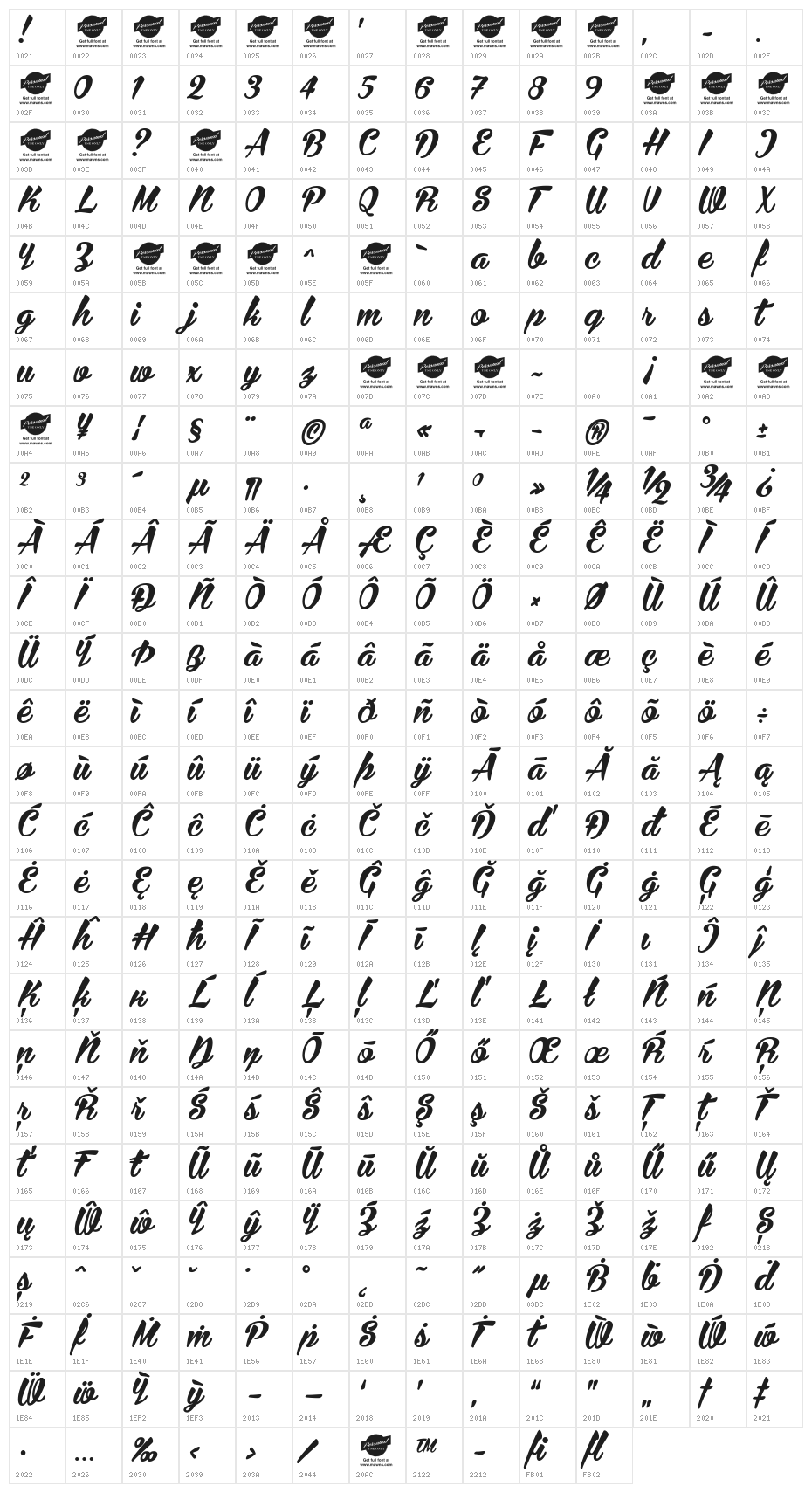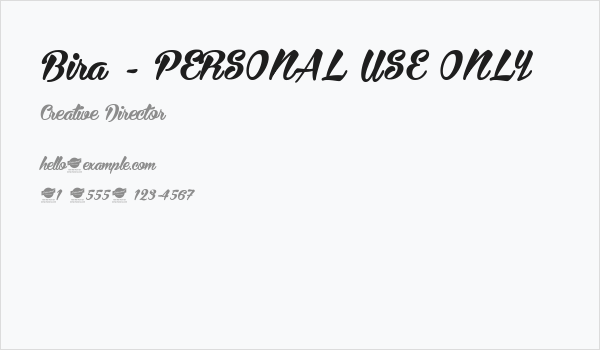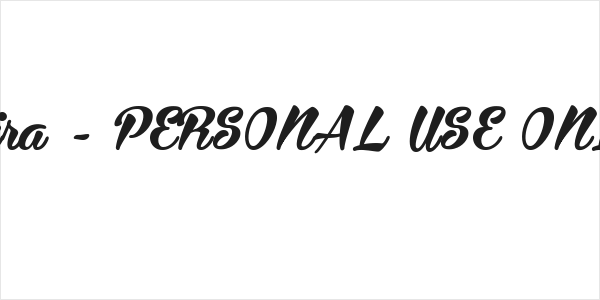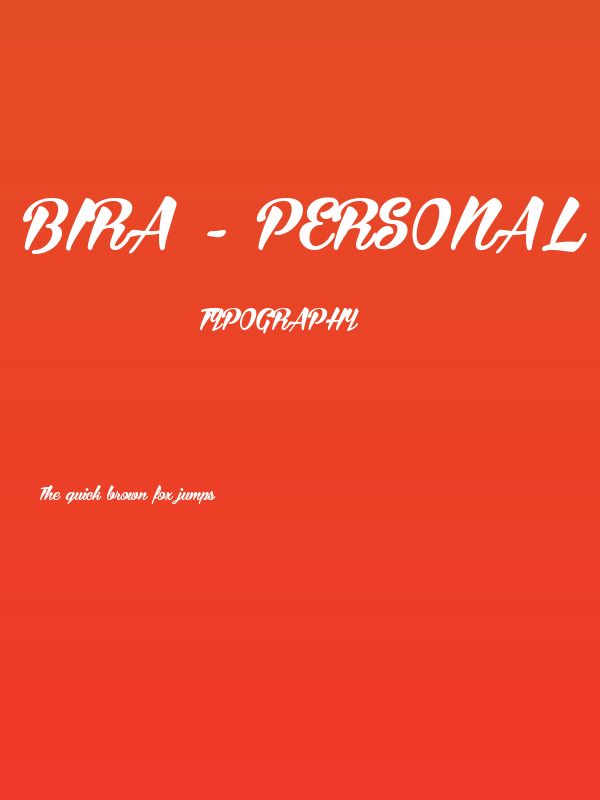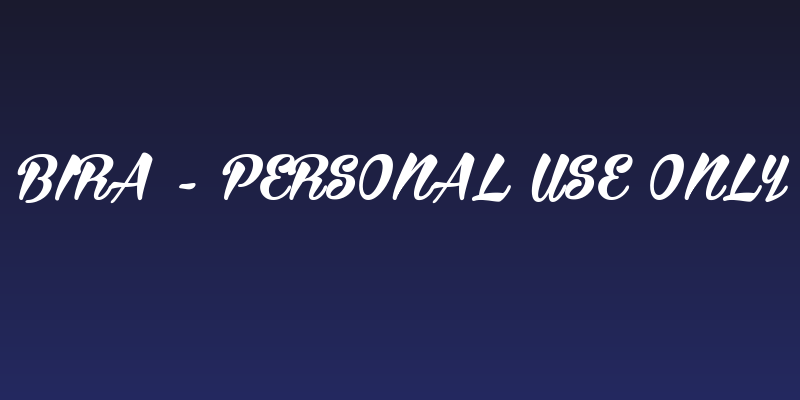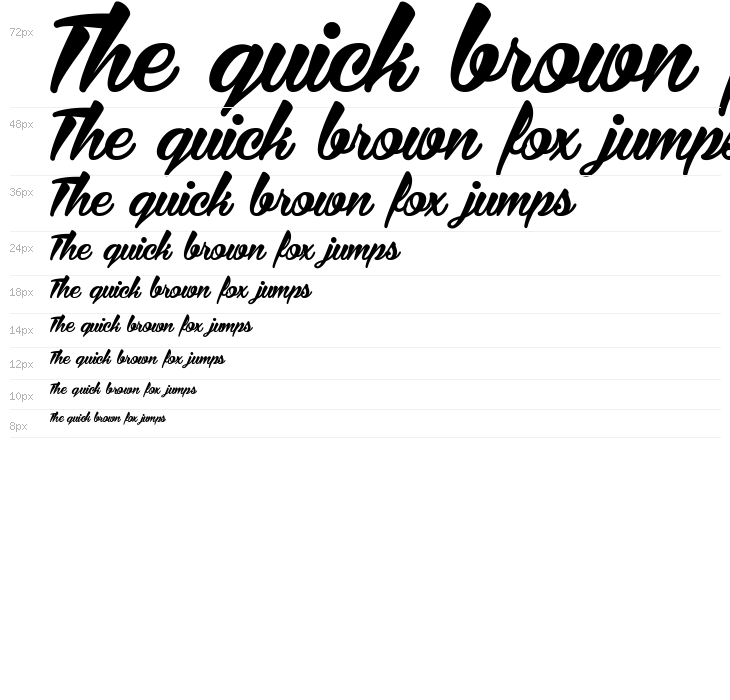
Bira - PERSONAL USE ONLY Font
Bira - PERSONAL USE ONLY Description
This font features a bold, flowing script style with a strong emphasis on smooth, connected strokes. The uppercase letters exhibit a dynamic, sweeping motion, while the lowercase letters maintain a consistent, elegant flow. The numbers are equally bold and maintain the script's fluidity. Special characters are designed to complement the overall aesthetic, adding a touch of flair. The font's thick strokes and rounded edges give it a friendly yet sophisticated appearance, making it suitable for a variety of creative applications.
| Proposed Projects | Ideal for branding, invitations, greeting cards, and logo design. |